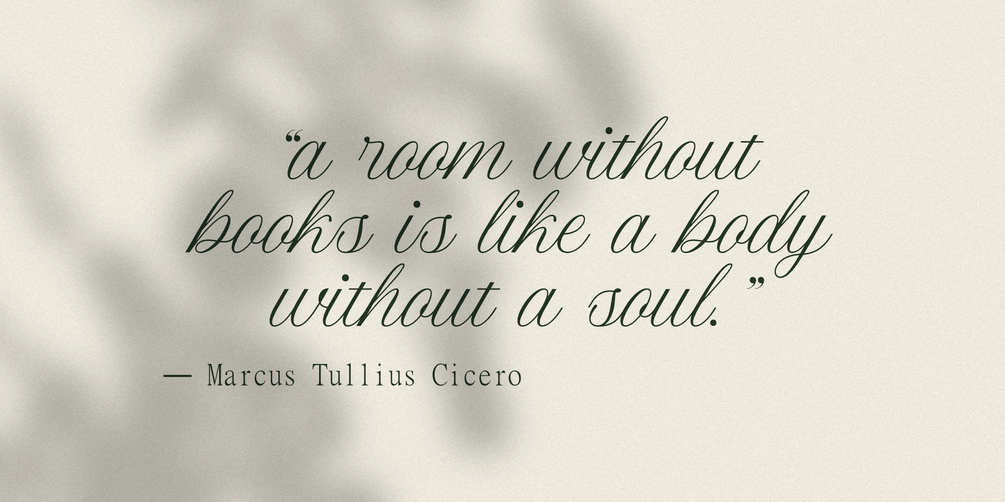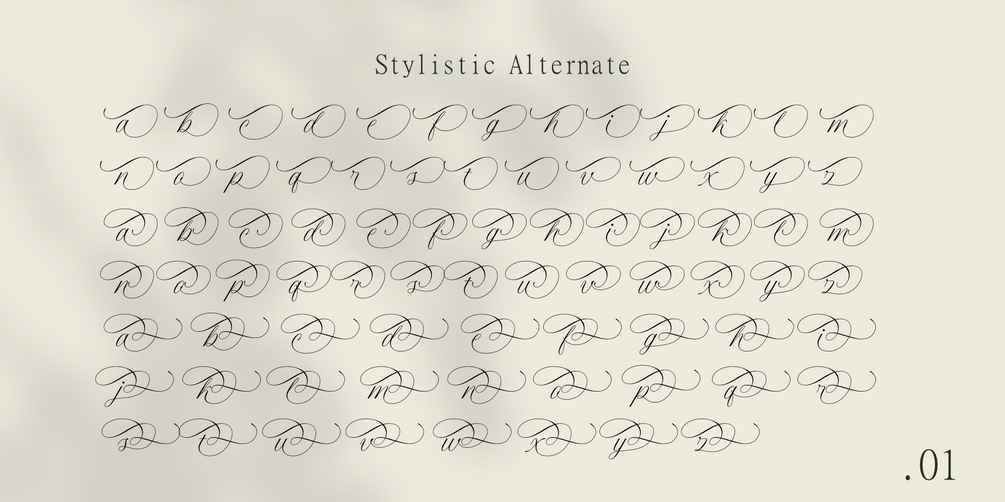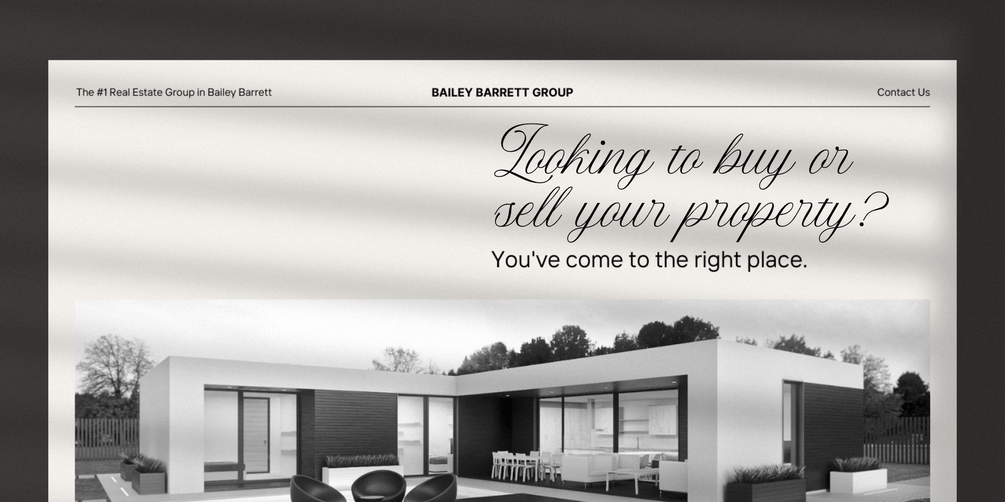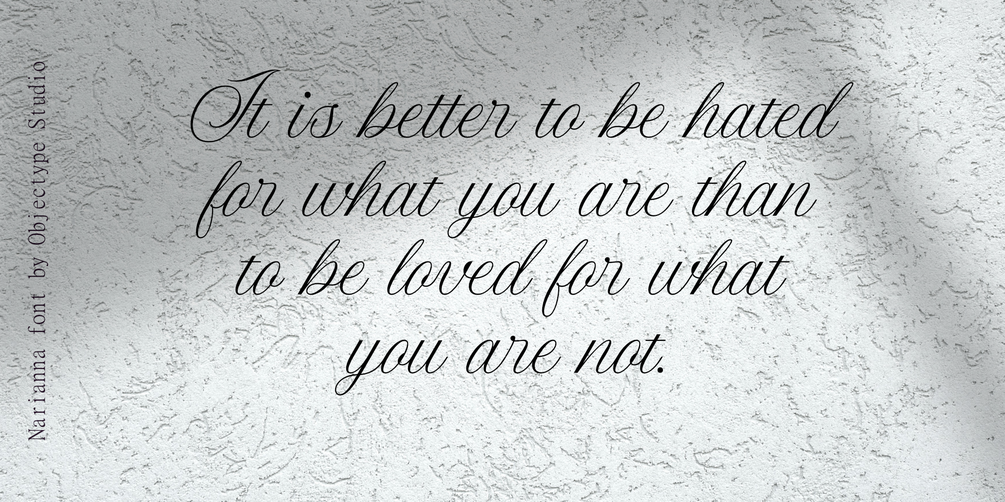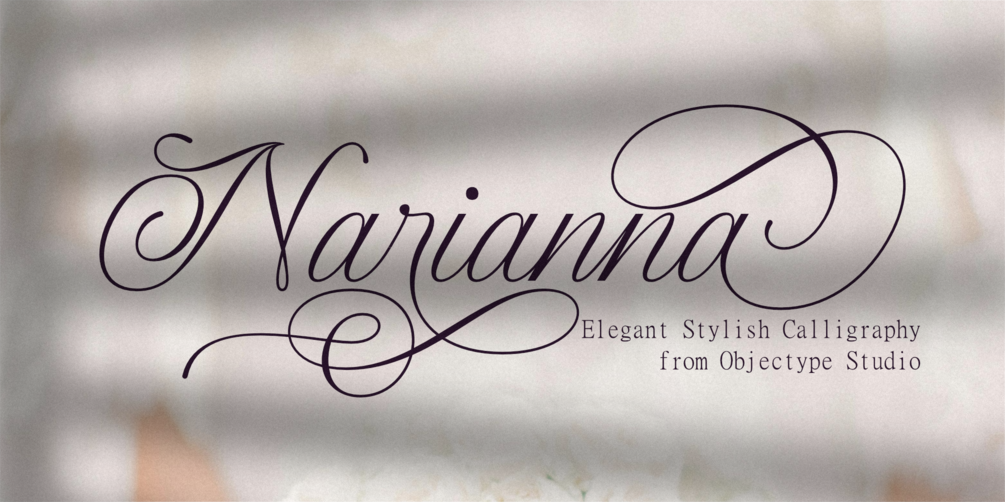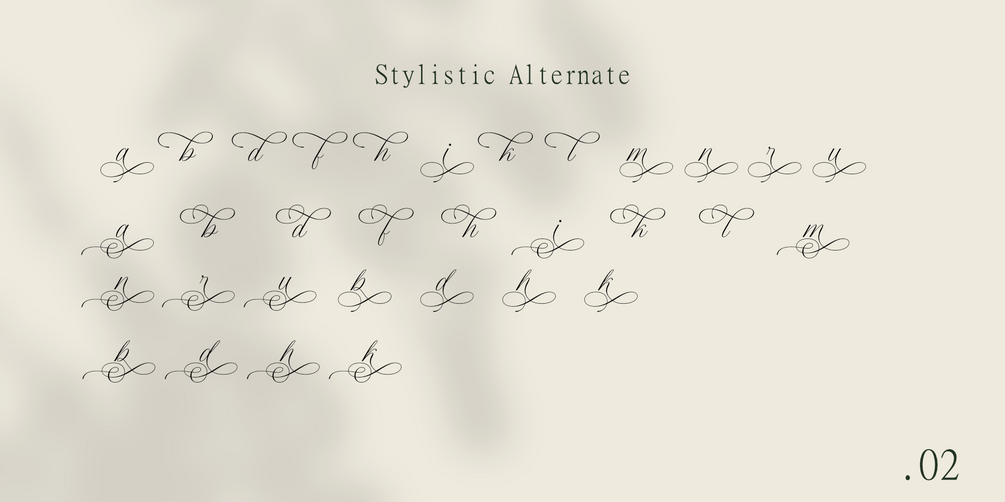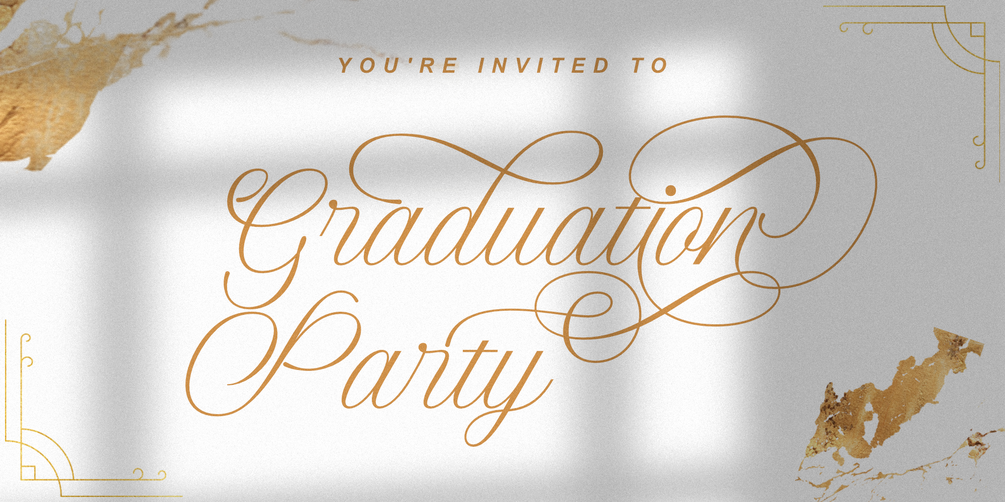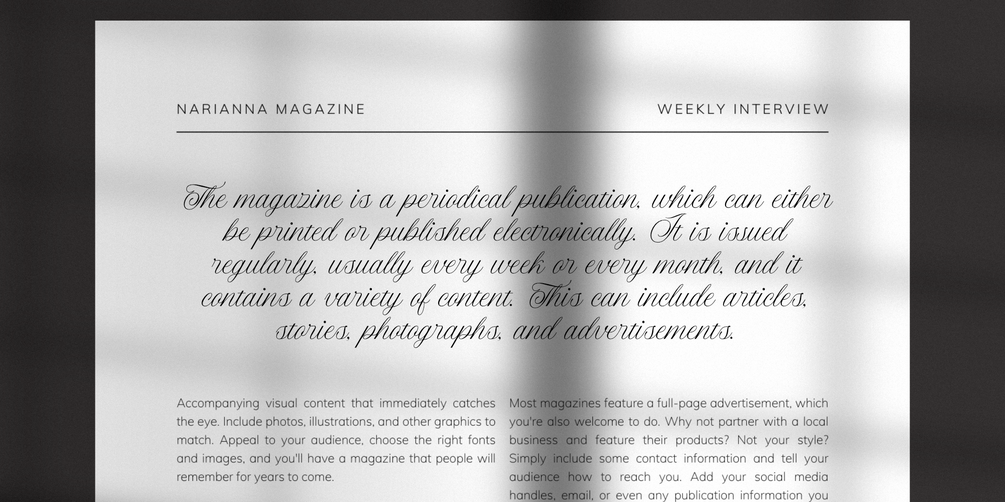
Narianna: Modern Script Font for Captivating Elegance
Narianna is a modern script font meticulously designed to bring an elegant and luxurious touch to your designs. With consistent thickness, this font offers a captivating minimalist feel with a touch of sophistication.
Inspired by classical calligraphy, Narianna is suitable for various purposes, from wedding invitations to logos. Its beautiful, feminine, and dramatic appearance makes it ideal for adding a romantic and dramatic touch to your designs.
Advantages of Narianna:
1. Graceful Modern Script: Narianna presents an elegant and easy-to-read modern script design, with fine details and consistent thickness.
2. Minimalist and Luxurious Touch: This font offers the perfect combination of minimalism and luxury, making it suitable for various designs, from simple to complex.
3. Inspired by Classical Calligraphy: Inspired by classical calligraphy, Narianna brings a classic and elegant touch to your designs.
4. Versatile Usage: Narianna is suitable for various purposes, such as wedding invitations, logos, romantic quotes, labels, and branding.
5. Character Completeness: Narianna comes with a complete set of characters and hundreds of alternate characters to enrich your design.
6. Multilanguage Support: Narianna supports multiple languages, allowing you to use it for international projects.
With 350+ glyphs that you can combine, Narianna is the perfect choice to add an elegant and luxurious touch to your designs.